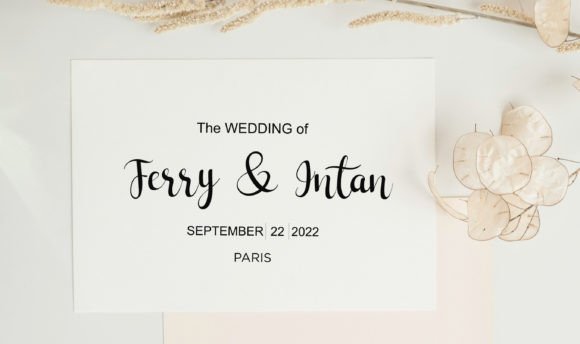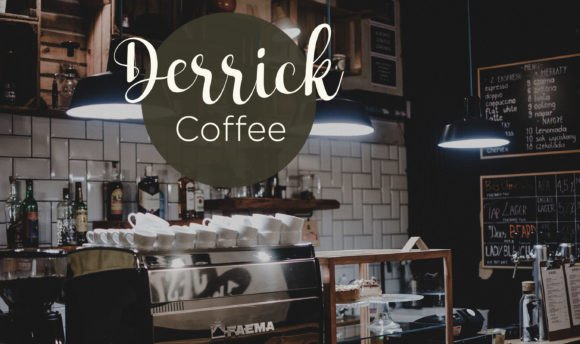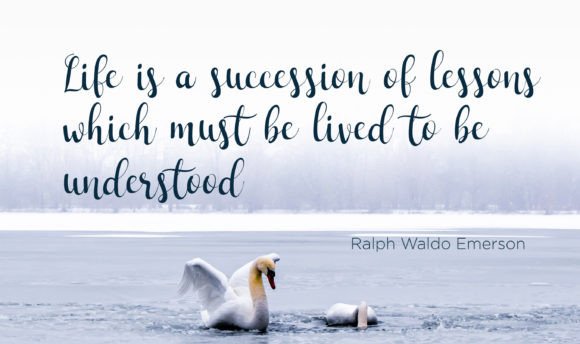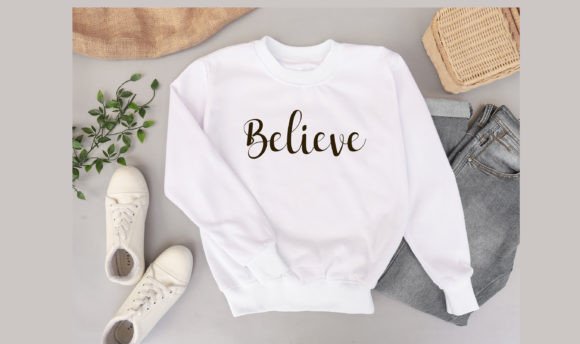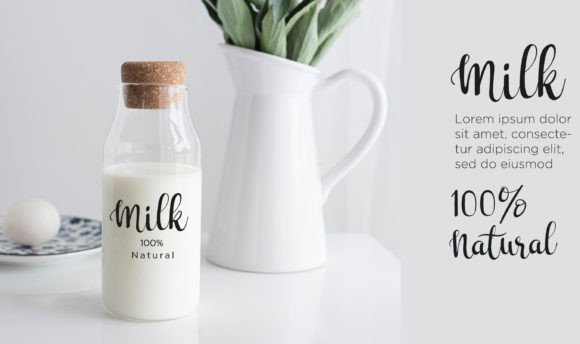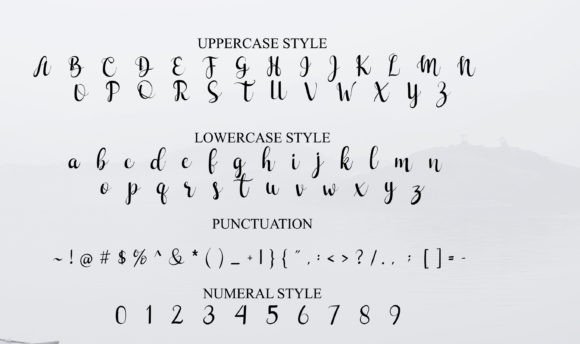
Barista Font
About Barista Font
Barista is a distinctive handwritten font that brings a contemporary feel and attractively inspired shapes to your design projects. This font is designed to add elegance and class, making it suitable for a variety of applications. Whether you’re working on invitations, labels, packaging, menus, logos, fashion, stationery, romantic novels, magazines, brand identity, or any other project designs, Barista offers a unique and stylish touch.
The versatility of Barista makes it well-suited for various formal work contexts. In invitations and wedding cards, Barista enhances the sophistication of the design, creating beautifully crafted pieces for special events.
For branding and logo design, Barista becomes a standout choice. Its unique handwritten style with contemporary influences adds a touch of authenticity and modernity, making it ideal for businesses seeking a distinctive and stylish brand identity.
In the fashion and clothing industry, Barista can be used for labels, tags, and promotional materials. Its attractive shapes and contemporary design complement the fashion aesthetic, adding a touch of class to the brand.
For digital designs, social media, and online presence, Barista stands out with its unique and elegant script. It brings a sense of refinement to Instagram posts, websites, cartoons, YouTube content, and more, making your online content visually appealing.
In literature, including romantic novels, magazines, and books, Barista becomes a captivating choice. Its contemporary and attractively inspired shapes add a fresh and modern touch to the text, enhancing the overall reading experience.
The adaptability of Barista extends to posters, games, and various design projects where its unique handwritten script ensures that it stands out and adds a touch of sophistication.
In summary, Barista is more than just a font; it’s a design tool that brings a unique and stylish handwritten aesthetic to your text. Whether used for formal invitations, branding, social media, literature, or other projects, Barista adds an elegant and classy touch, making your designs memorable and visually appealing.